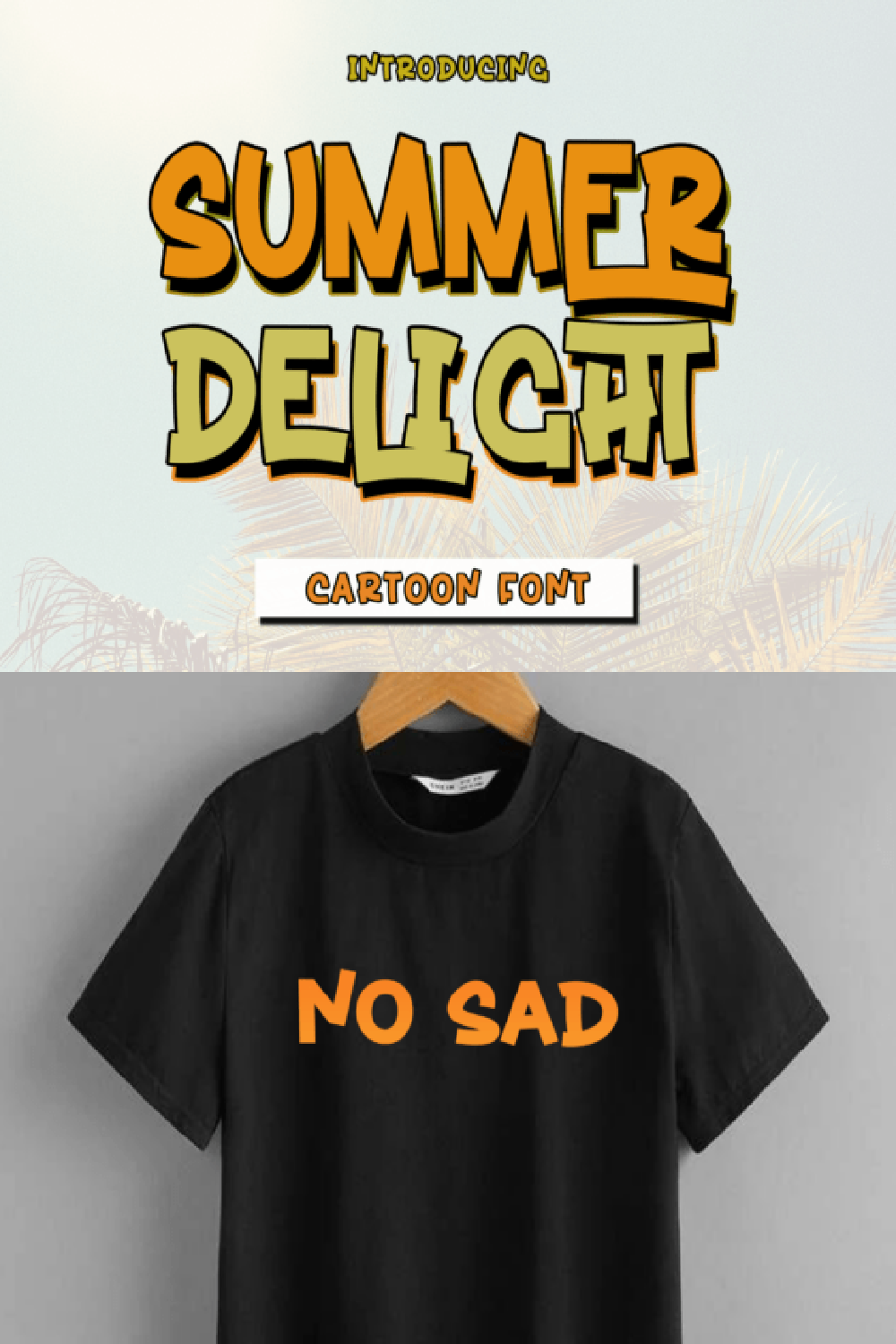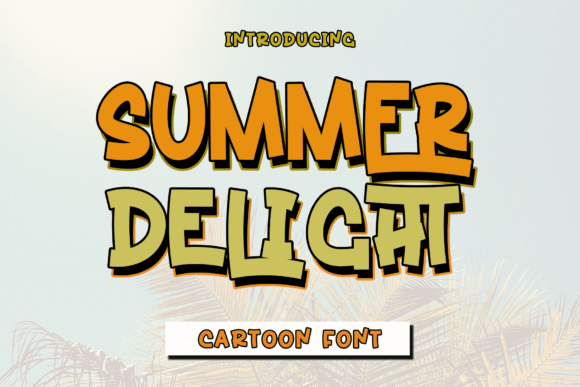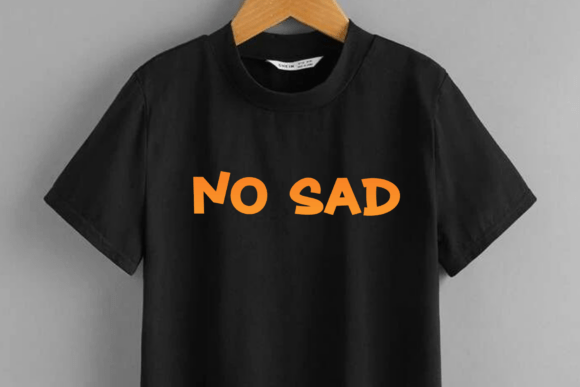
Summer Delight Font: A Playful Cartoon Display Font for Cricut & DIY
About the Summer Delight Font
Unleash your creativity with Summer Delight Font, a versatile font perfect for a wide range of applications. Summer Delight is a festive and merry typeface that captures the spirit of the holiday season. With its decorative elements and whimsical flair, it adds a touch of enchantment to your designs. Perfect for greeting cards, gift tags, and holiday-themed projects, this font brings a cheerful and nostalgic ambiance to your words. Let your typography shine with the magic of Beautiful Font!